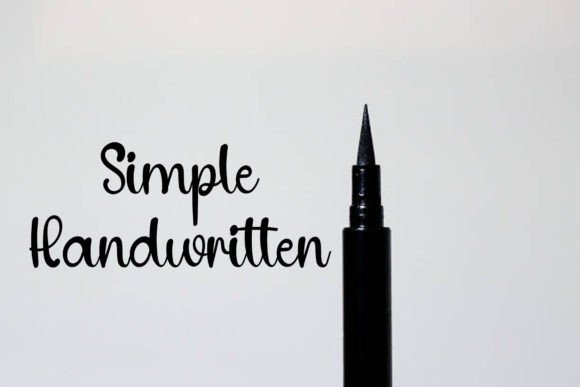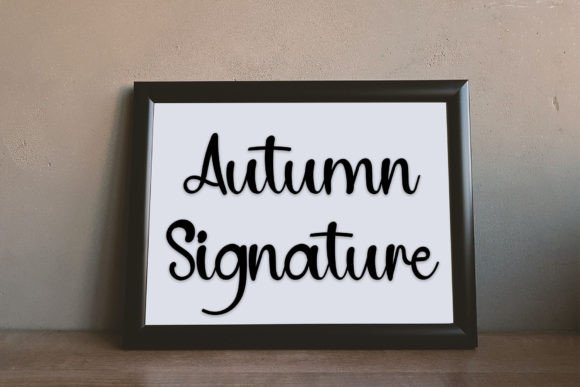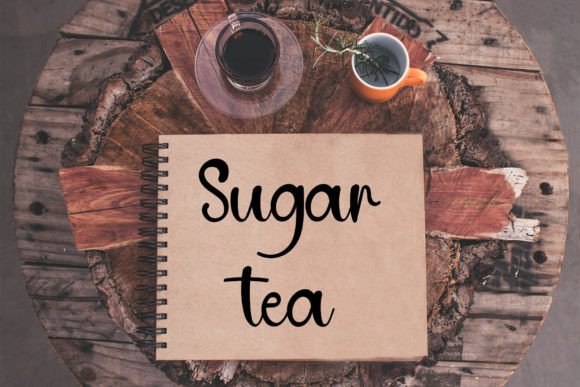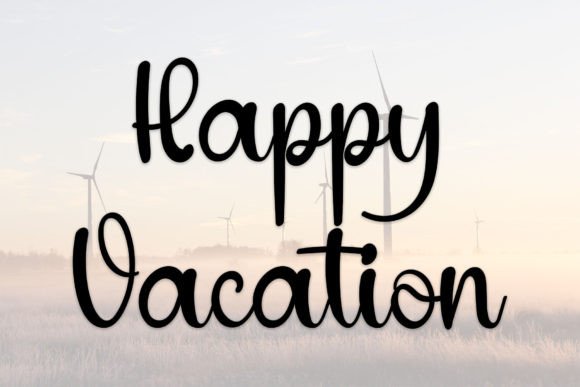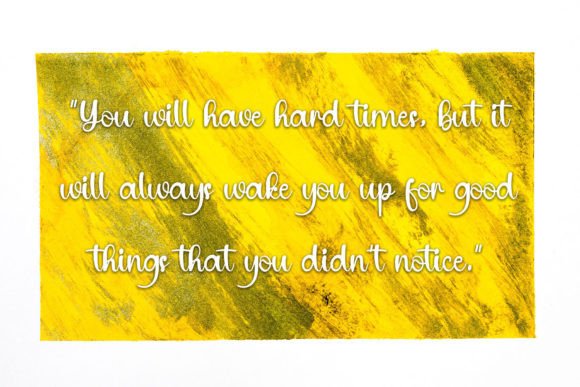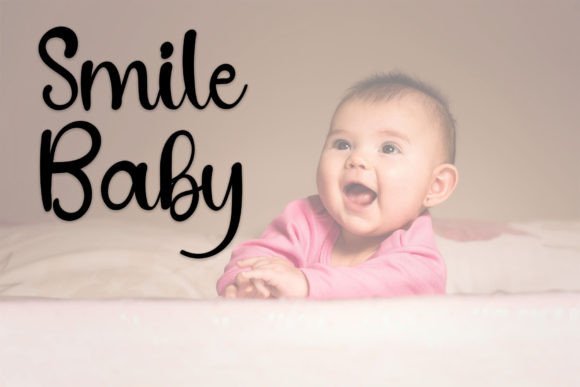
Introducing Happy Sunshine Font: Elevate Your Designs with a Touch of Timeless Elegance
In the world of typography, few fonts manage to capture the essence of both modern style and classic charm. Happy Sunshine Font is one such gem that effortlessly blends contemporary flair with the impeccable form of timeless classic calligraphy. Designed to bring a balanced and varied aesthetic to your projects, Happy Sunshine is more than just a font – it’s a statement piece that can elevate your designs to new heights.
The Inspiration Behind Happy Sunshine
Happy Sunshine Font draws its inspiration from the elegant world of calligraphy, where every stroke and curve is a testament to the art of beautiful writing. The creators of Happy Sunshine have meticulously crafted this font to reflect the essence of classic calligraphy, infusing it with a modern twist that makes it highly versatile and suitable for a wide range of design projects.
Key Features of Happy Sunshine Font
- Stylish Handwritten Style: Happy Sunshine boasts a stylish handwritten appearance that adds a personal touch to any project. Its contemporary atmosphere makes it perfect for designers looking to infuse their work with a sense of modern elegance.
- PUA Encoding: One of the standout features of Happy Sunshine Font is its PUA (Private Use Area) encoding. This means that users can easily access all the glyphs and ligatures, allowing for a high degree of customization and creativity in design projects.
- Balanced and Varied: The font is designed to be balanced and varied, offering a range of expressions that can cater to different design needs. Whether you’re working on a branding project, a website, or a craft, Happy Sunshine provides the flexibility to create something truly unique.
Applications of Happy Sunshine Font
Happy Sunshine Font is incredibly versatile, making it suitable for a multitude of applications. Here are some ways designers and crafters can make the most of this beautiful font:
- Branding and Logos: Create memorable brand identities with Happy Sunshine’s elegant and modern aesthetic.
- Web Design: Enhance your website’s typography with a font that is both stylish and readable.
- Stationery and Invitations: Add a touch of sophistication to your stationery, invitations, and greeting cards.
- Crafting and DIY Projects: Perfect for crafters, Happy Sunshine can be used in various DIY projects, from scrapbooking to crafting personalized gifts.
Why Choose Happy Sunshine Font?
In a sea of fonts, Happy Sunshine stands out for several reasons:
- Timeless Appeal: Its classic inspiration ensures that it will remain stylish for years to come, avoiding the trend-based lifecycle of many fonts.
- Versatility: Suitable for both digital and print projects, Happy Sunshine adapts to various design needs.
- Easy to Use: With PUA encoding, accessing the full range of glyphs and ligatures is straightforward, making it user-friendly even for those new to font design.